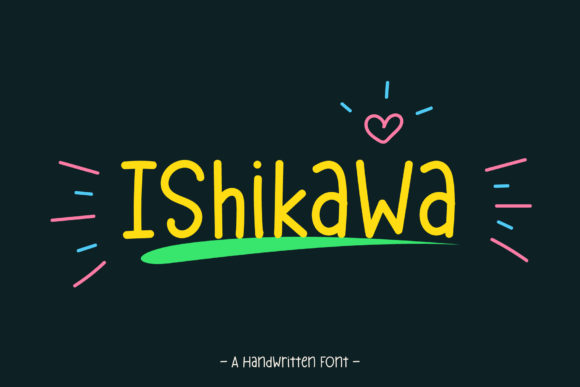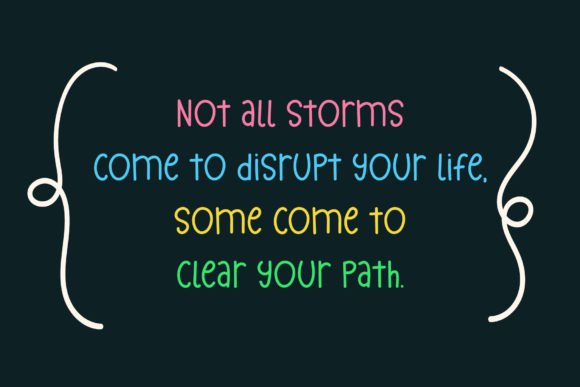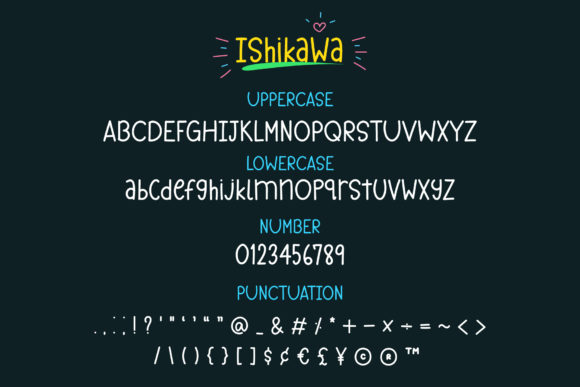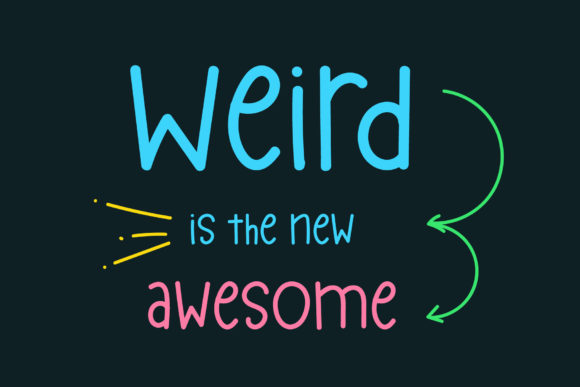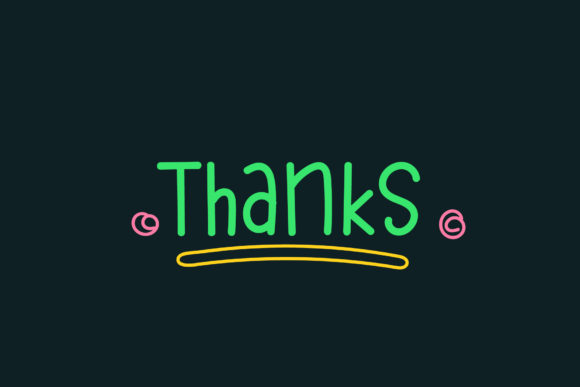
Ishikawa Font
About Ishikawa Font
Ishikawa is a sweet and versatile handwritten font, carefully handcrafted to become a true favorite. Its casual charm makes it appear wonderfully down-to-earth, the perfect choice for each of your designs. Ishikawa will look outstanding in any context, whether it’s being used on busy backgrounds or as a standalone headline!